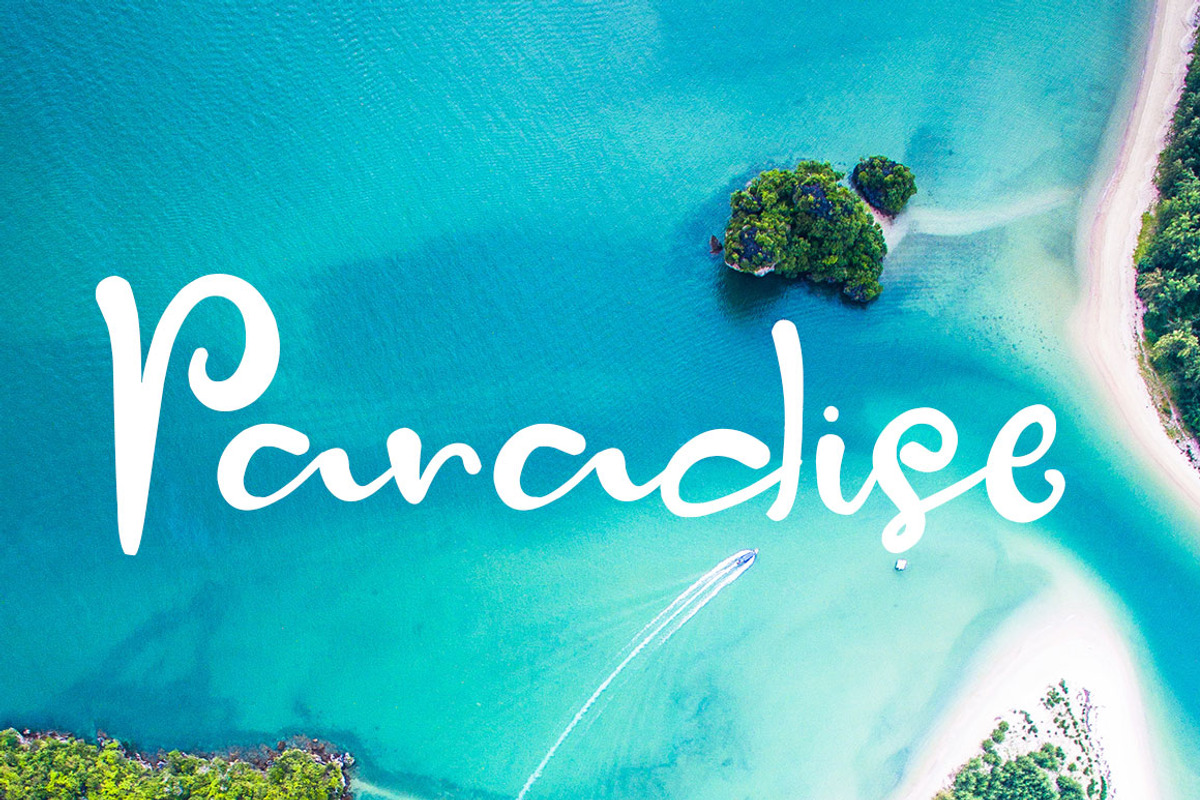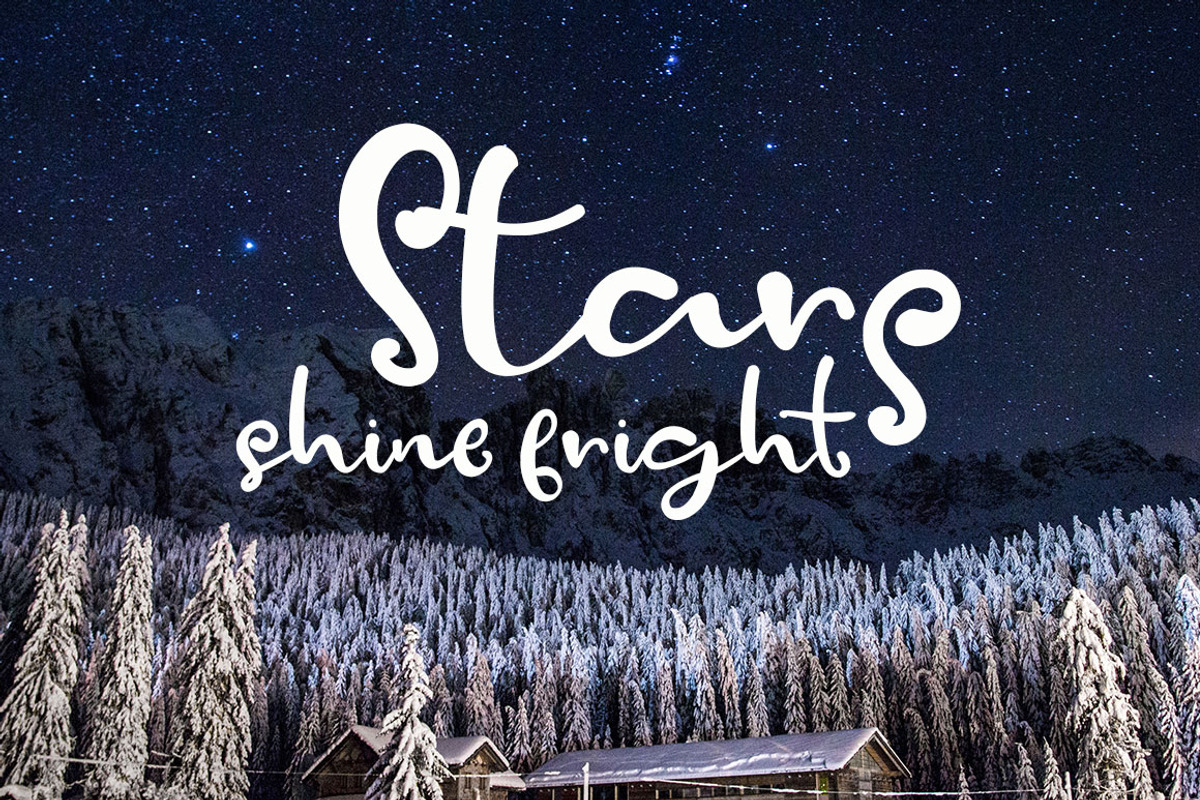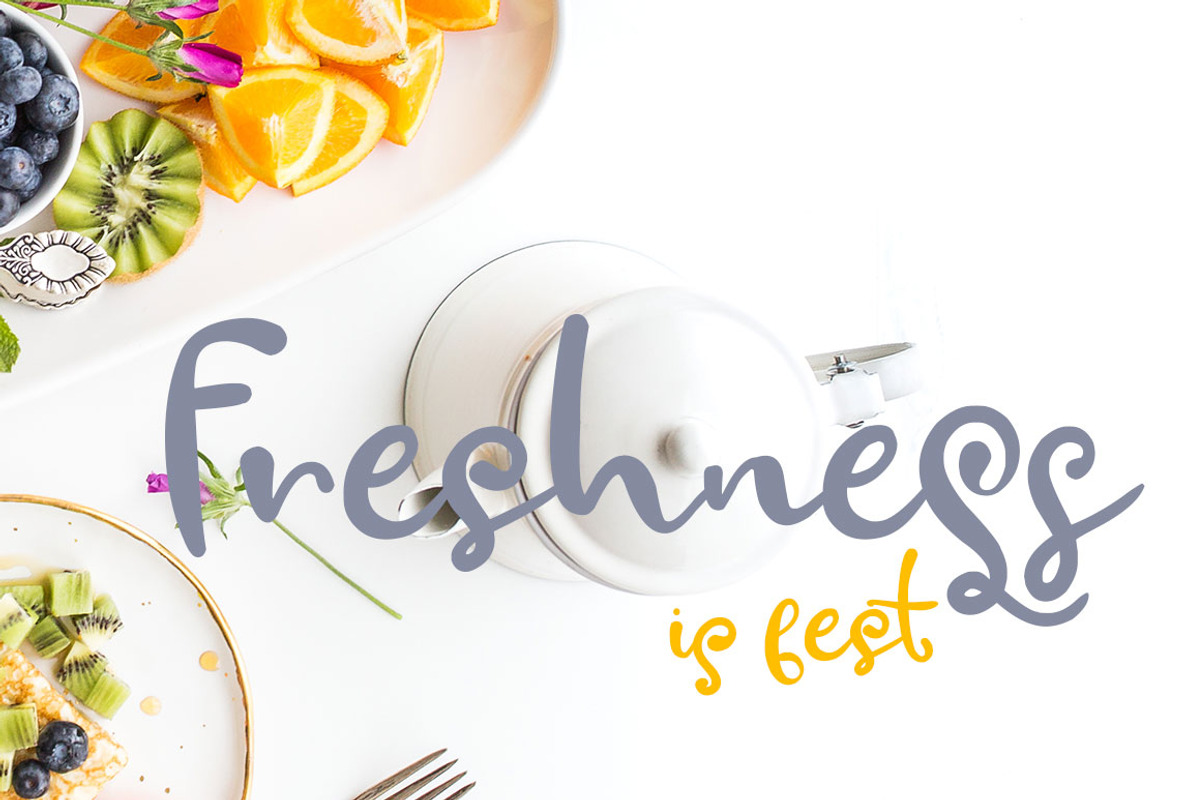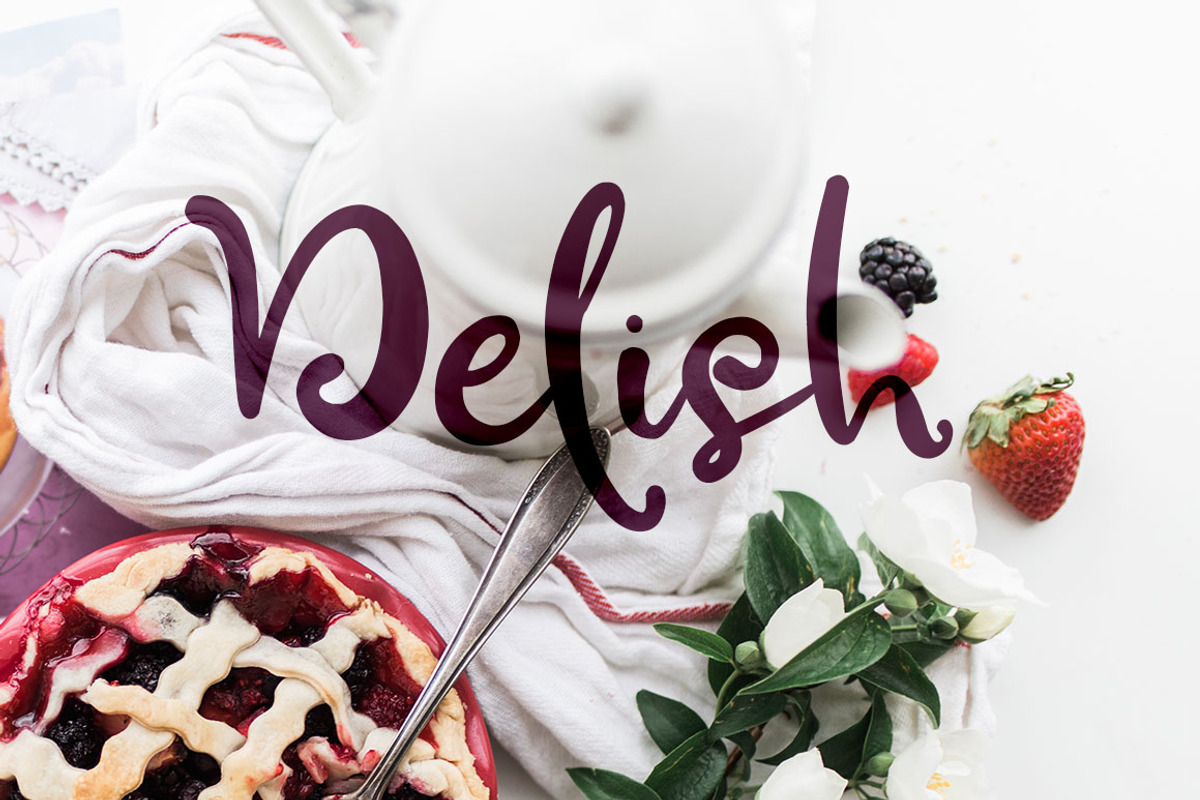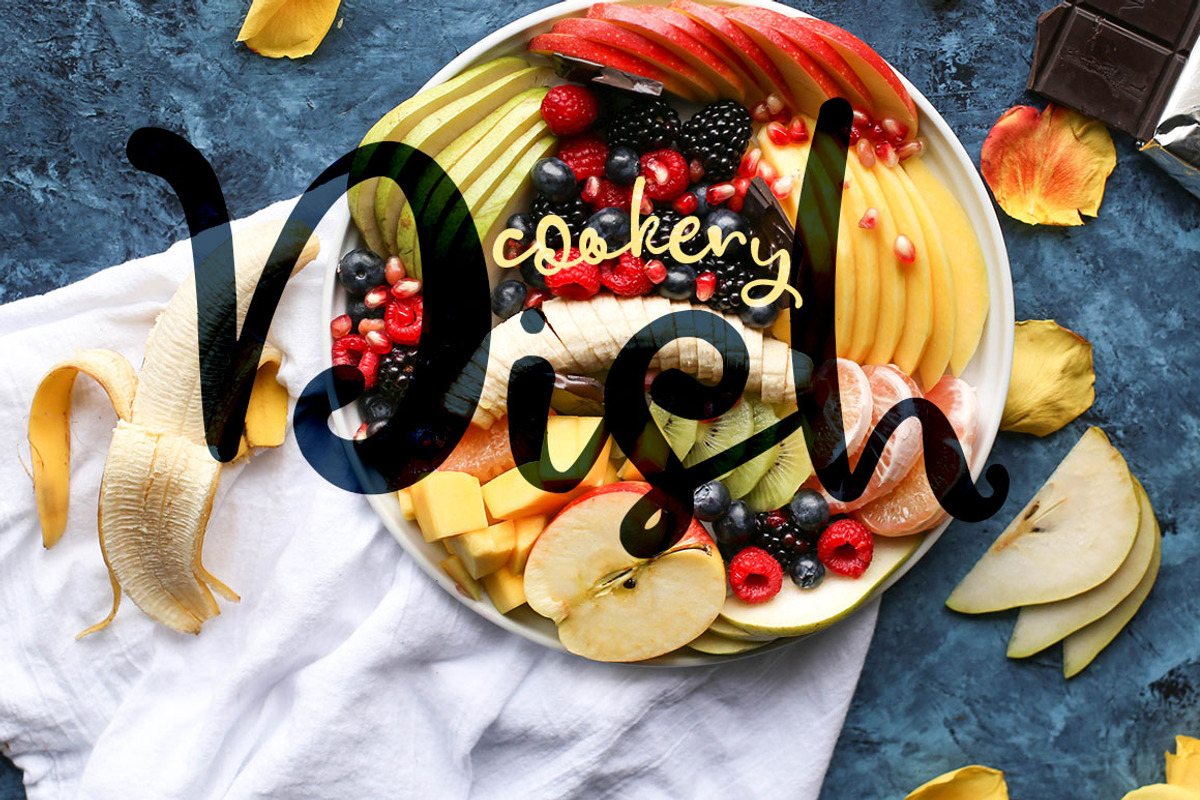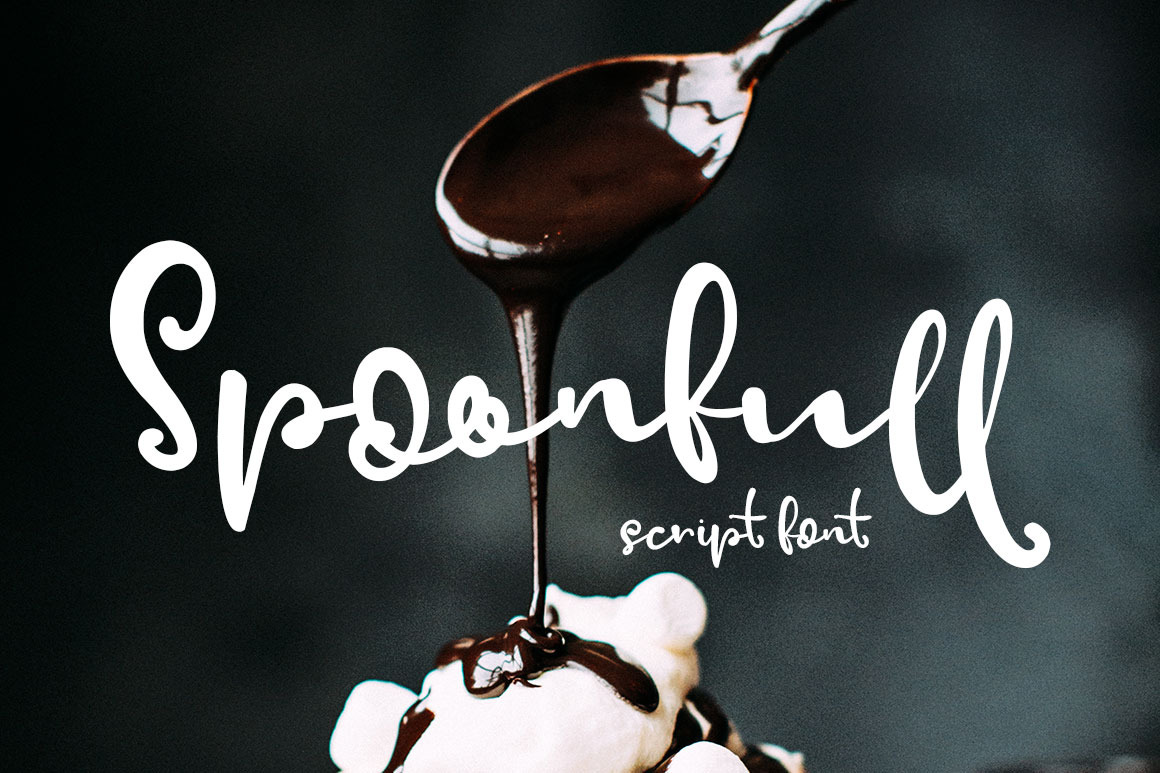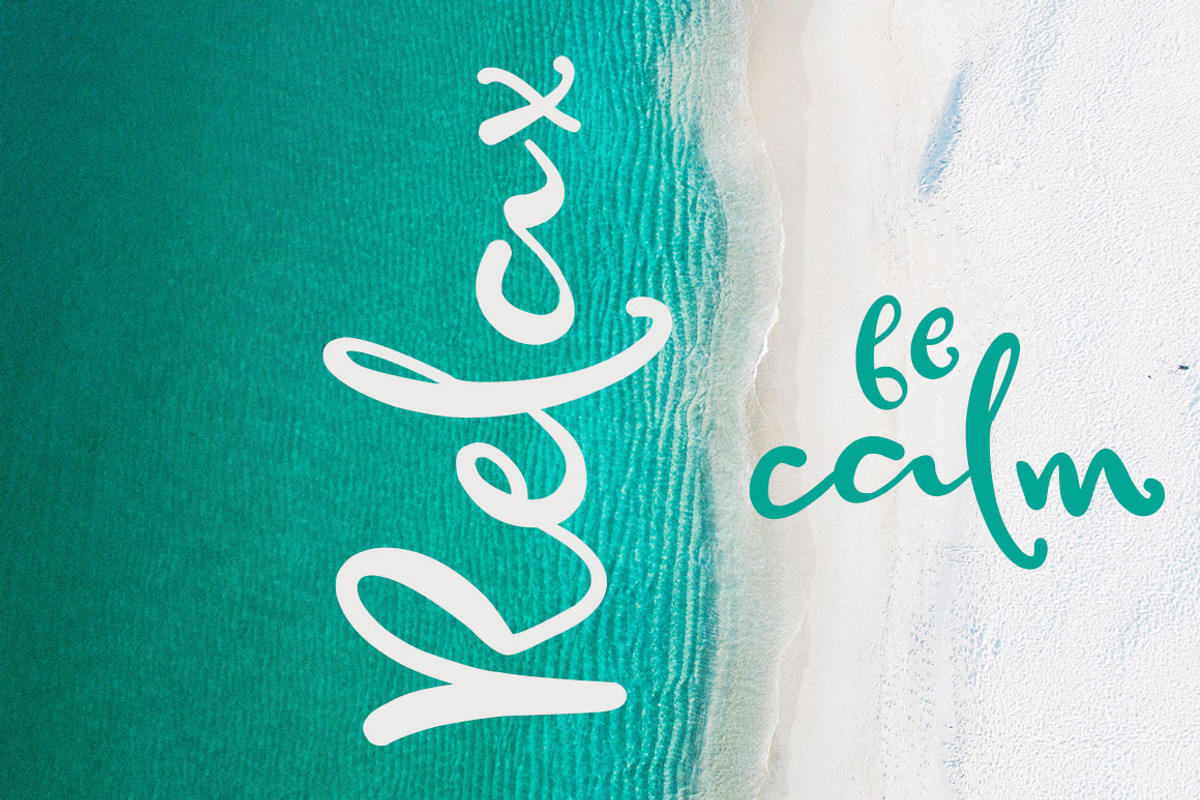
Spoonfull Script Font
Introducing the all new script font Spoonfull
Filled with gorgeous alternate letters for ending words, and double letters for that genuine hand drawn look, Spoonfull is sure to add a dash of personality to your next project!
Spoonfull is an international font.